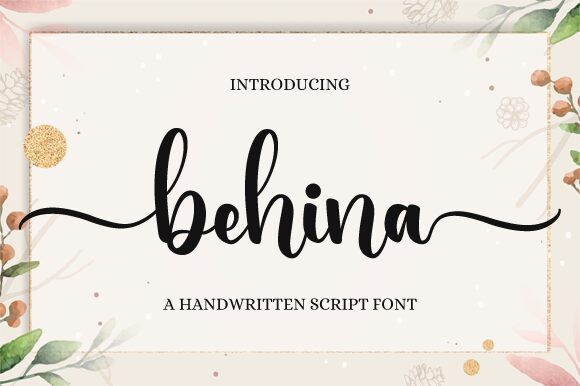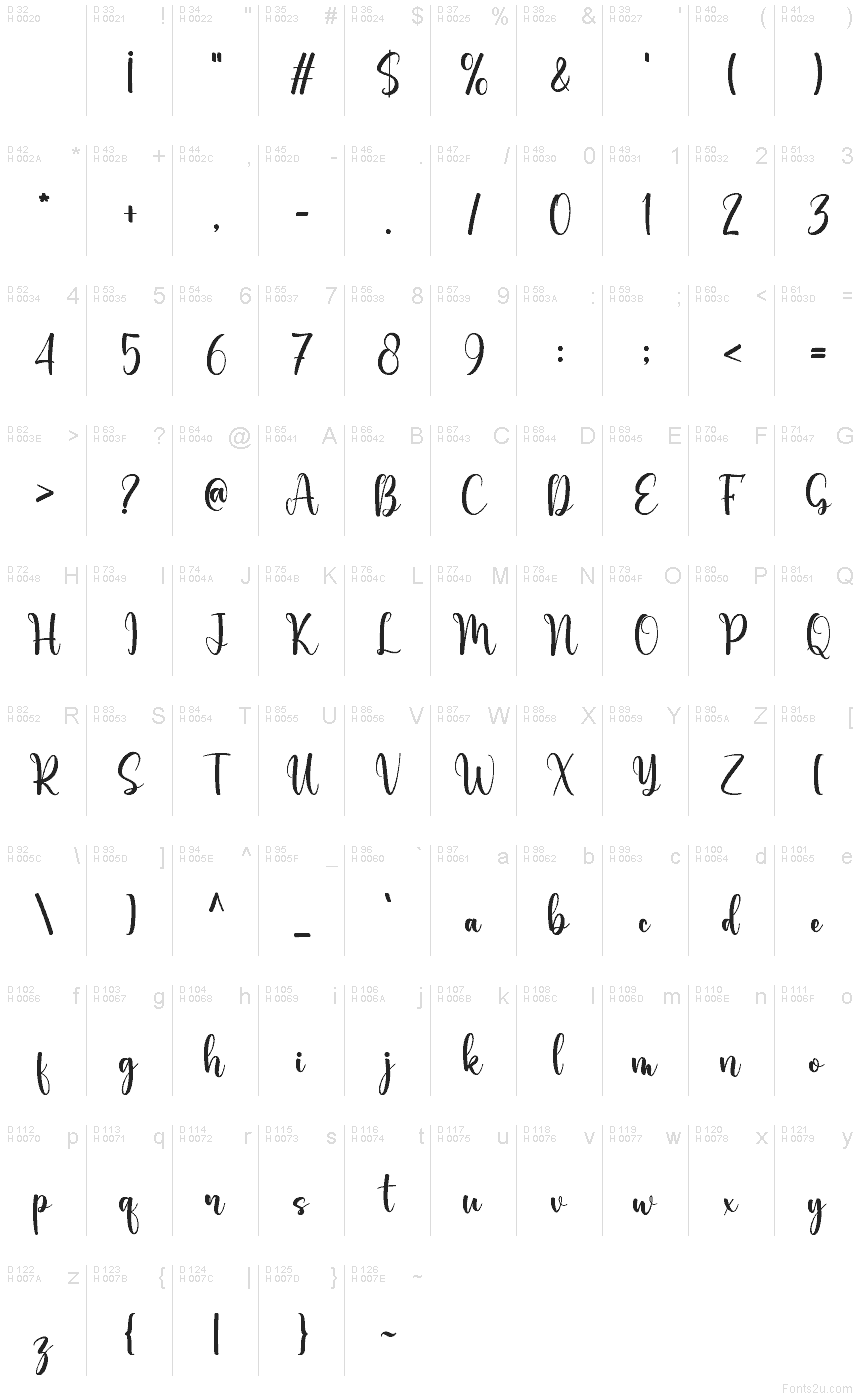
Behina
Behina font by Nirmala Creative is a free handwritten script typeface with lush, inky strokes and smooth, looping curves. Its letters feel like they were drawn with a soft brush pen—bold, flowing, and just a bit playful—giving every word a warm, personal touch. The generous curves and rounded forms create an easy rhythm that reads clearly while still feeling special and crafted.
Using Behina, you can bring a romantic, hand-lettered feel to invitations, logos, product packaging, quote posts, greeting cards, and branding for lifestyle or beauty projects. This free font shines when used large, letting the thick, velvety lines and swooping connections really show. Pair Behina with a clean sans serif for body text to keep layouts balanced and modern.